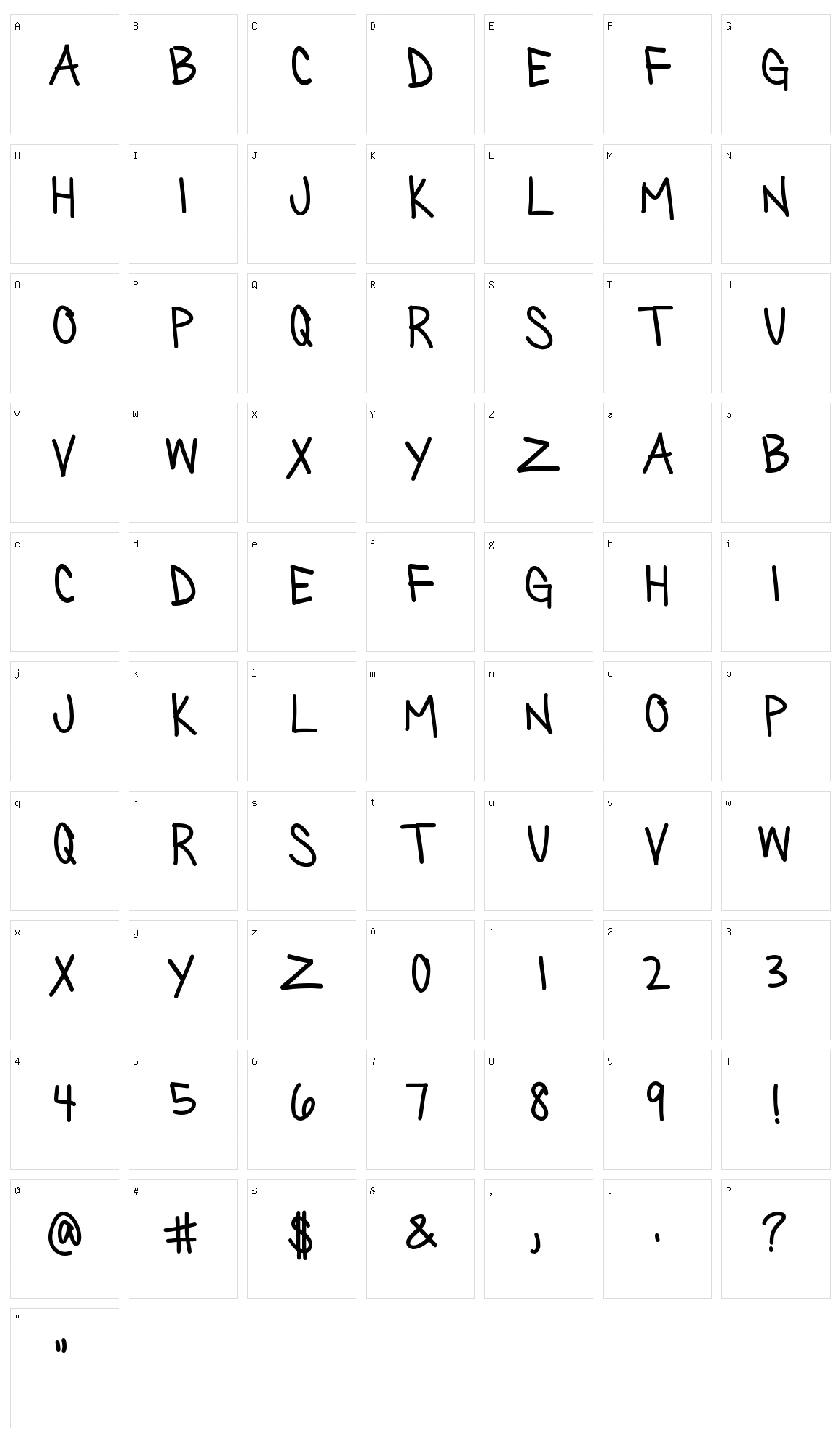
The free font Silly Games is carefully designed by Font Monger, showcasing a thoughtful balance of creativity and usability and falls under the Script font style. When you download the ZIP file, it contains only 11.92 KB of font files, making it lightweight and quick to download. Please review the license details below to understand permitted usage and distribution rights. If license information is not available, we recommend using this font for personal projects only or contacting the author directly for commercial usage permissions.
Designed by: Chris Vile